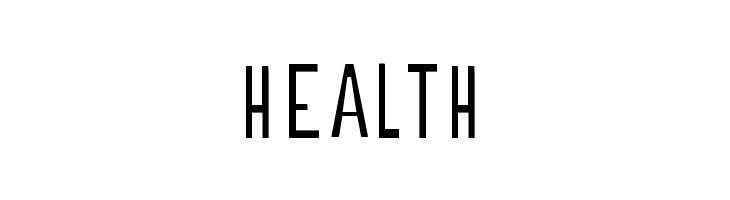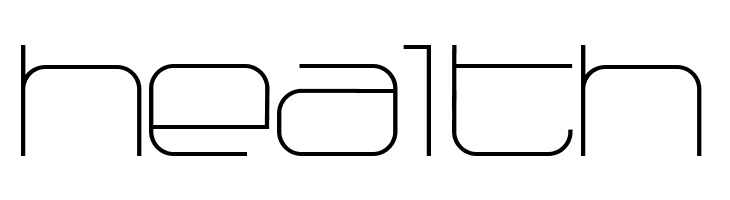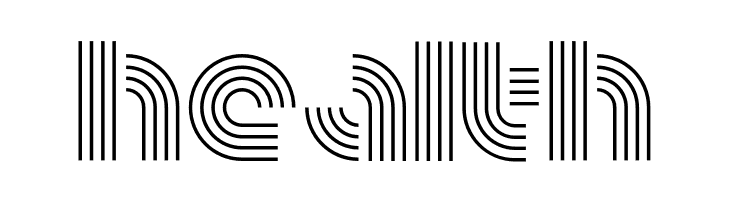
A playful and quirky font with bold, rounded strokes and irregular letterforms.
A futuristic, geometric font with thin, continuous lines and a minimalist design.
A futuristic, geometric font with consistent stroke width and rounded edges.
A modern, outlined geometric font with a futuristic aesthetic.
A bold, geometric font with an industrial, vintage railway aesthetic.